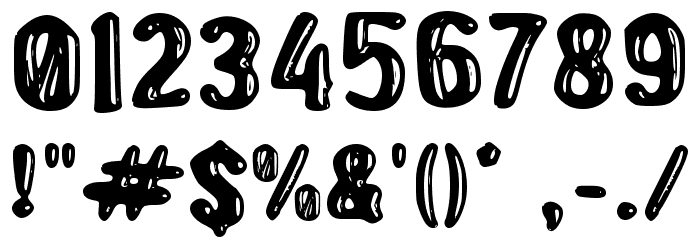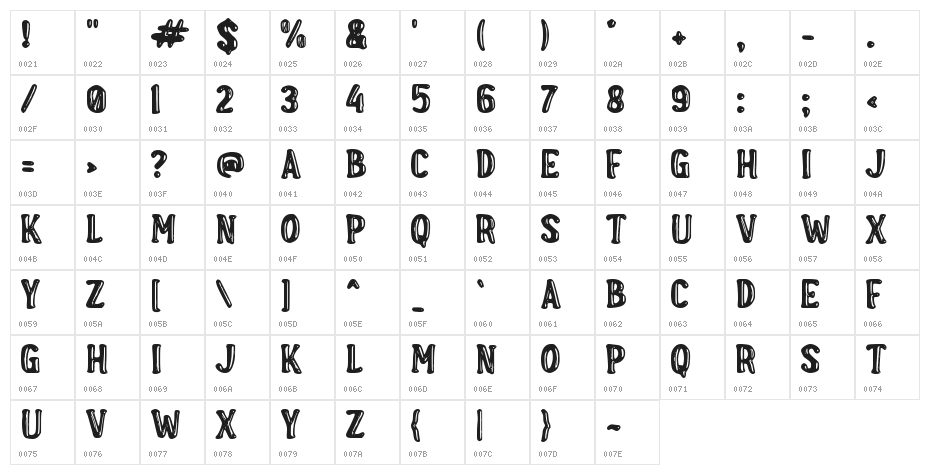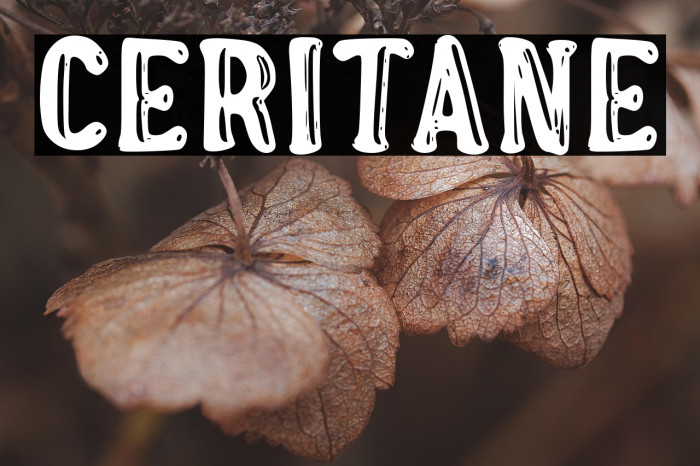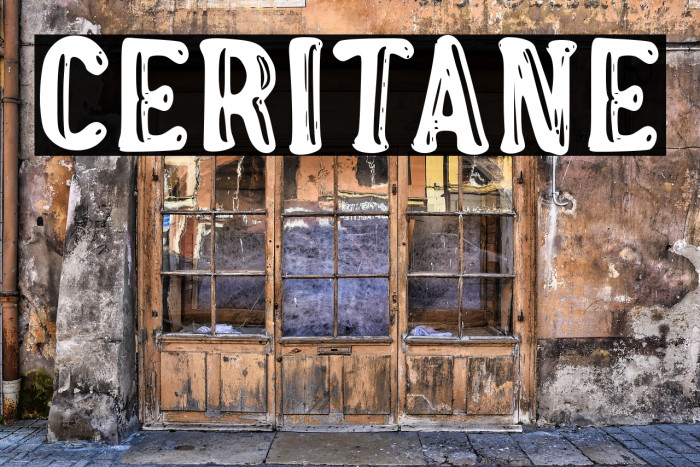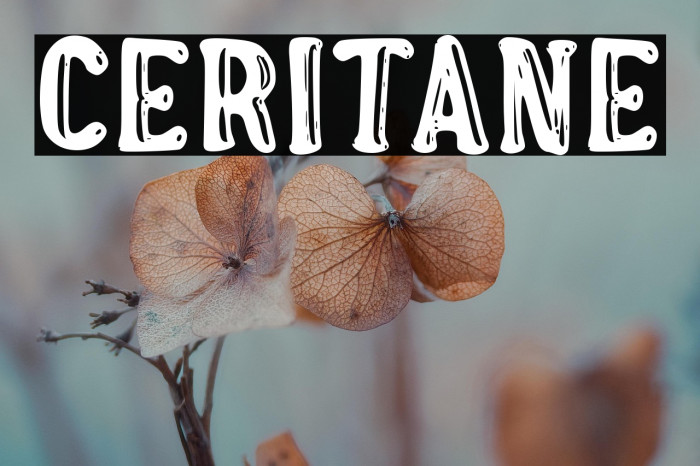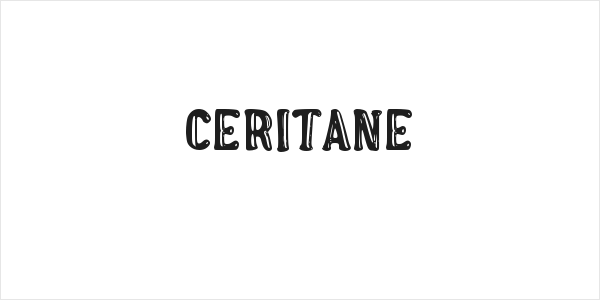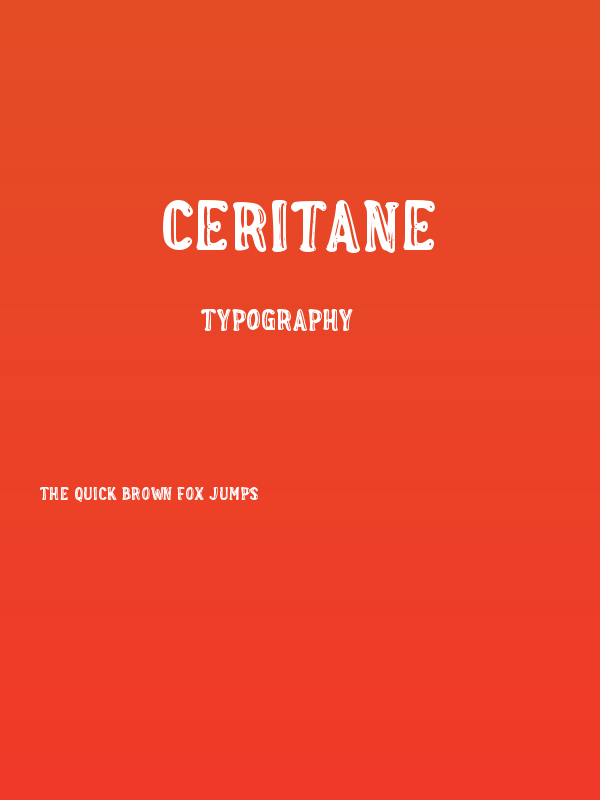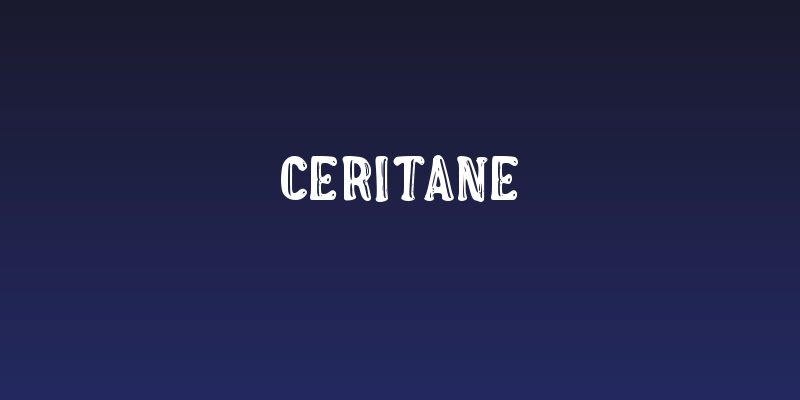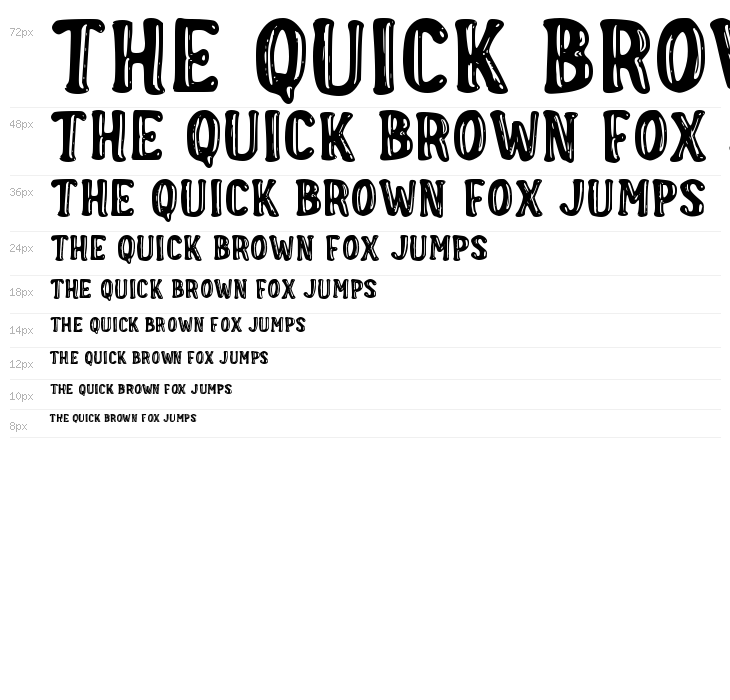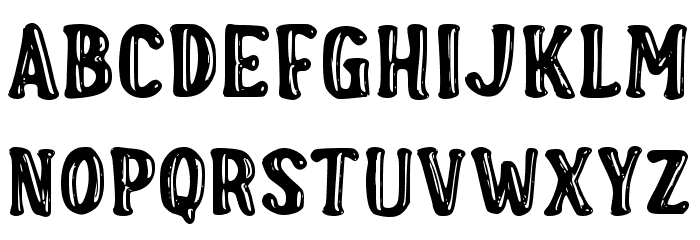
Ceritane Font
Ceritane Description
This font features a playful and bold design with a hand-drawn aesthetic. Each character is uniquely crafted with irregular edges and a slightly distressed look, giving it a whimsical and artistic feel. The letters are thick and substantial, making them stand out prominently. The numbers and special characters follow the same style, ensuring consistency across all elements. This font is perfect for projects that require a fun and informal touch, such as children's book covers, posters, or creative branding materials. Its distinct style captures attention and adds a lively character to any design.
| Overall Style | Playful, Artistic, Whimsical |
| Proposed Projects | Ideal for children's books, posters, creative branding, and playful designs. |